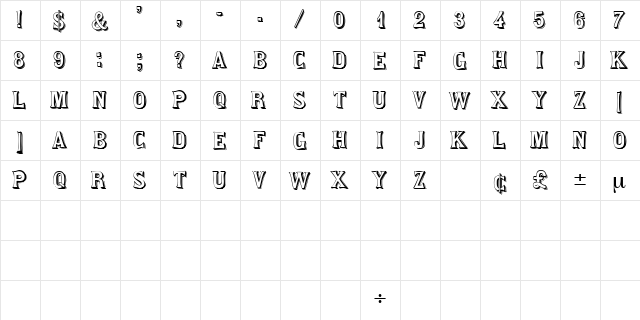
SaloonDisplayCapsSSK Regular
Design Context for SaloonDisplayCapsSSK Typeface
SaloonDisplayCapsSSK taps into classic Western woodtype traditions — bold, characterful, and impossible to ignore.
Perfect for barbecue restaurants, country music branding, vintage poster design, and rustic packaging.
Font Pairing: Combine SaloonDisplayCapsSSK with a simple slab or neutral sans — period-accurate companions reinforce the vintage feel without competing for attention.
Pro Tip: Pair SaloonDisplayCapsSSK with aged textures or distressed backgrounds to amplify its vintage personality.